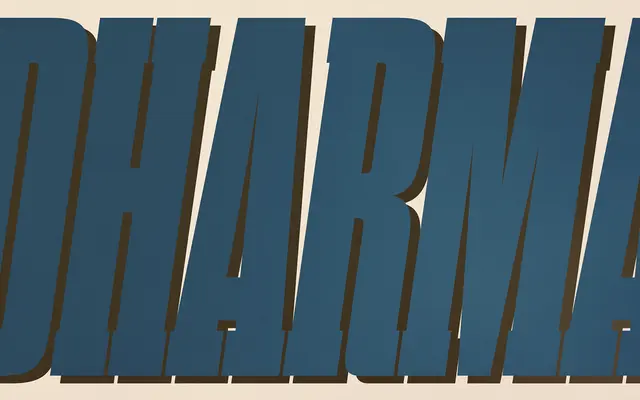
Dharma Slab specimen from Dharma Type
A condensed display slab serif drawing on 1800s wood type traditions, offered in 42 styles for poster and titling work.
Built around the visual language of nineteenth-century wood type, this family delivers the weathered, high-impact quality of antique letterpress printing in a contemporary digital package. Forty-two styles give considerable range across weights and italics, with OpenType alternates for g, r and y adding typographic flexibility. A companion set of borders, ornaments and frames based on vintage Hamilton catalogues is available free to round out period-style layouts.
A condensed slab serif explicitly inspired by 1800s wood type, placing it firmly in the display slab category with a wood type revival subcategory.